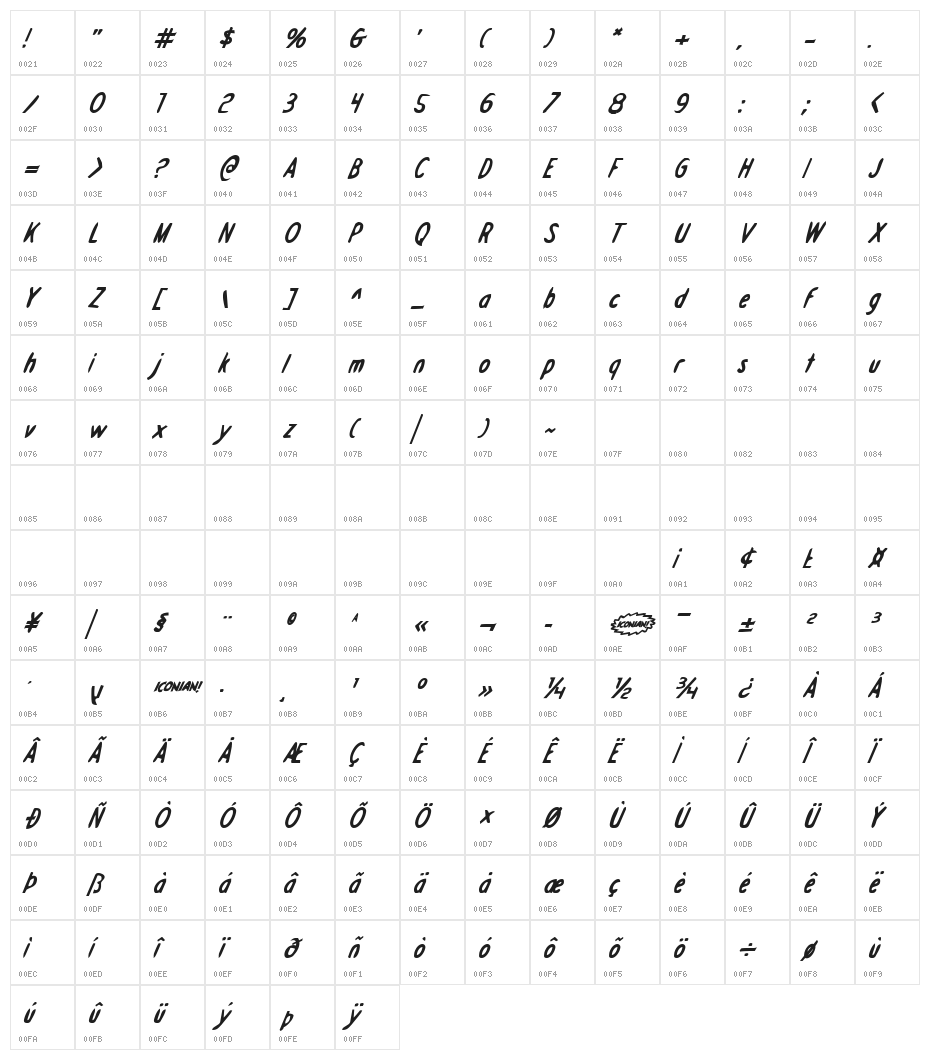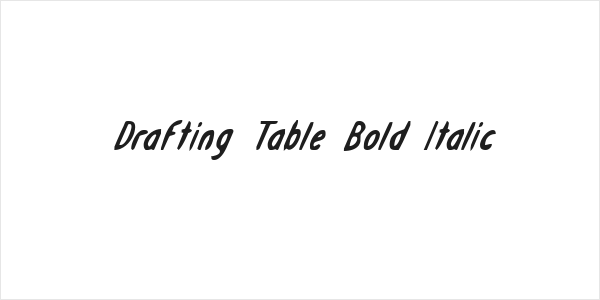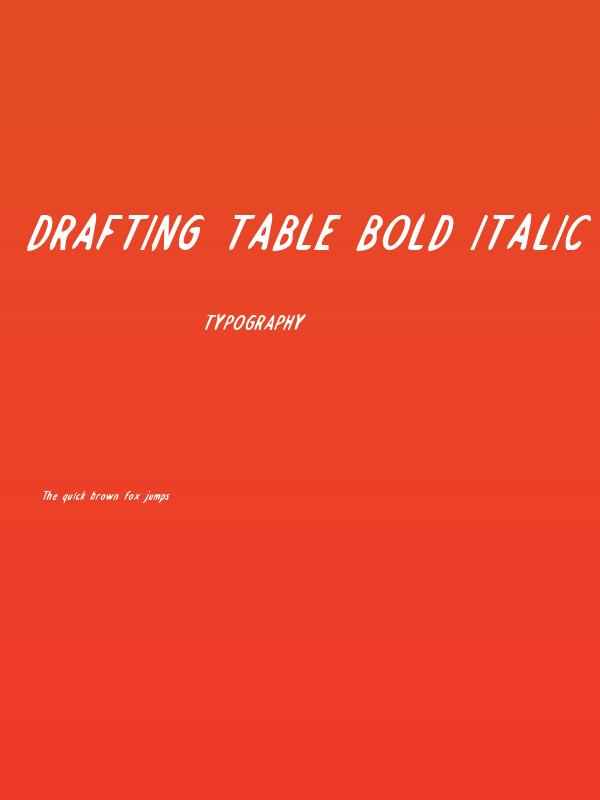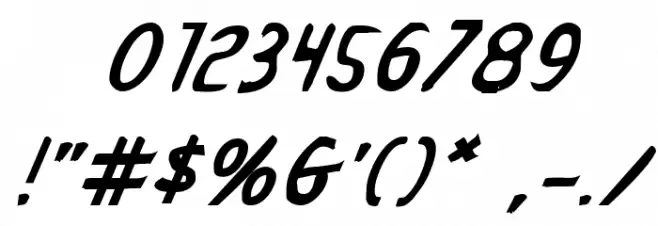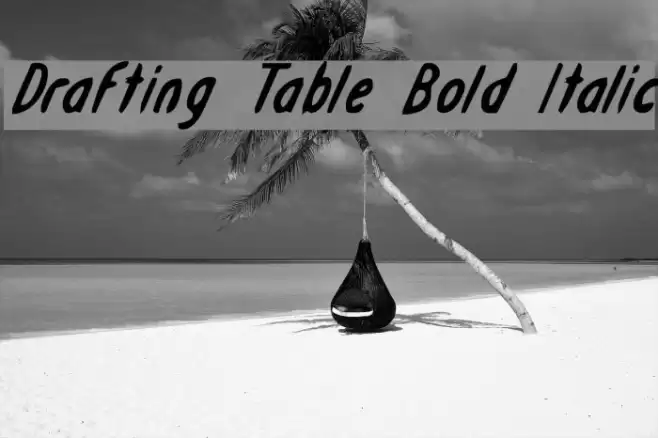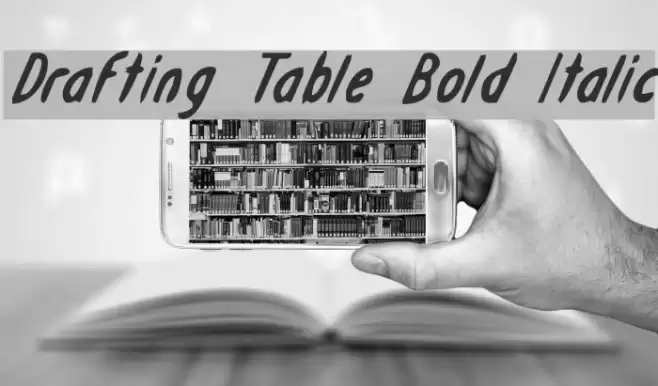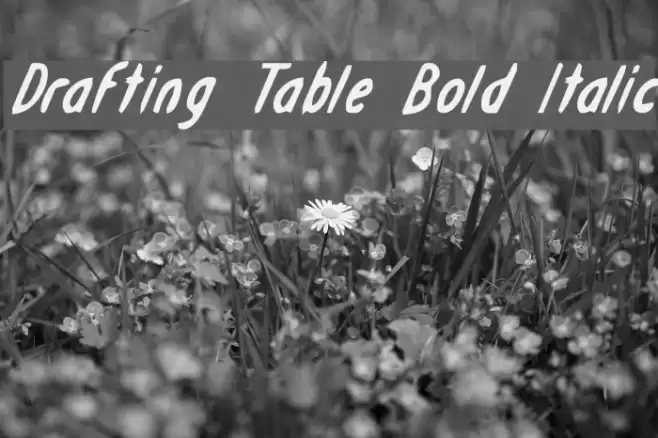
Drafting Table Bold Italic Font
This font features a bold and italicized style with a dynamic and energetic appearance. The letters are slightly slanted, giving a sense of movement and fluidity. The strokes are thick and consistent, providing a strong visual impact. The uppercase and lowercase letters maintain a cohesive look, with rounded edges and smooth curves. The numbers and special characters follow the same design principles, ensuring uniformity across all glyphs. This font is well-suited for projects that require a bold statement and a touch of creativity.
| Proposed Projects | Ideal for branding, posters, headlines, and creative design projects. |